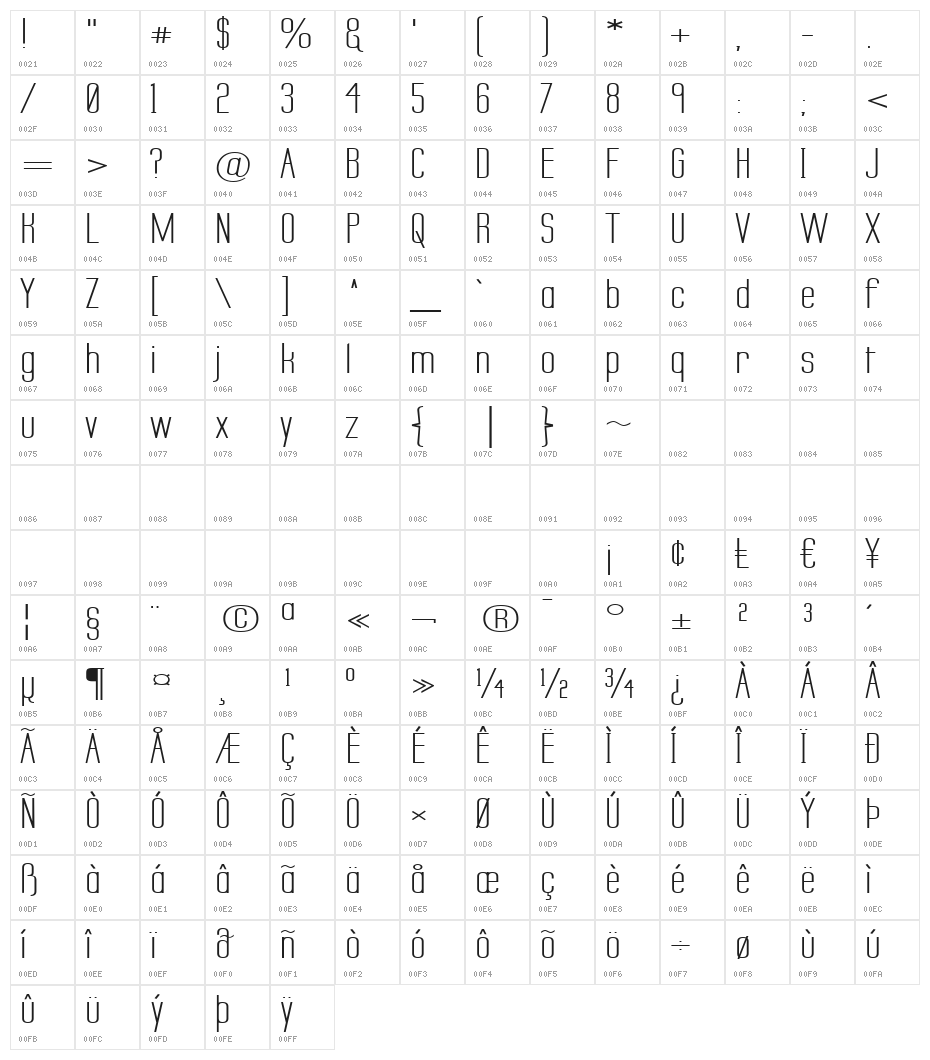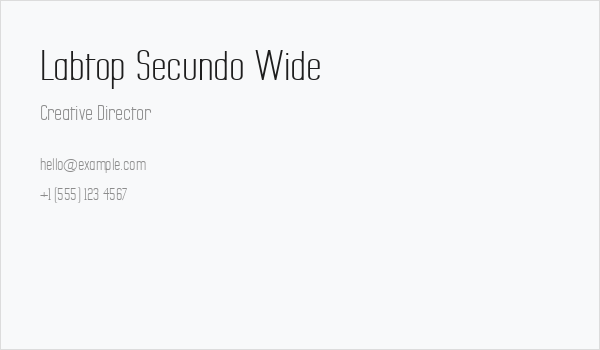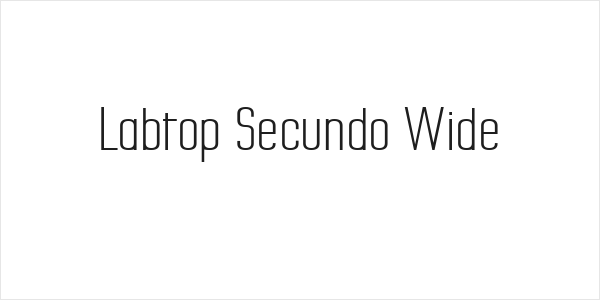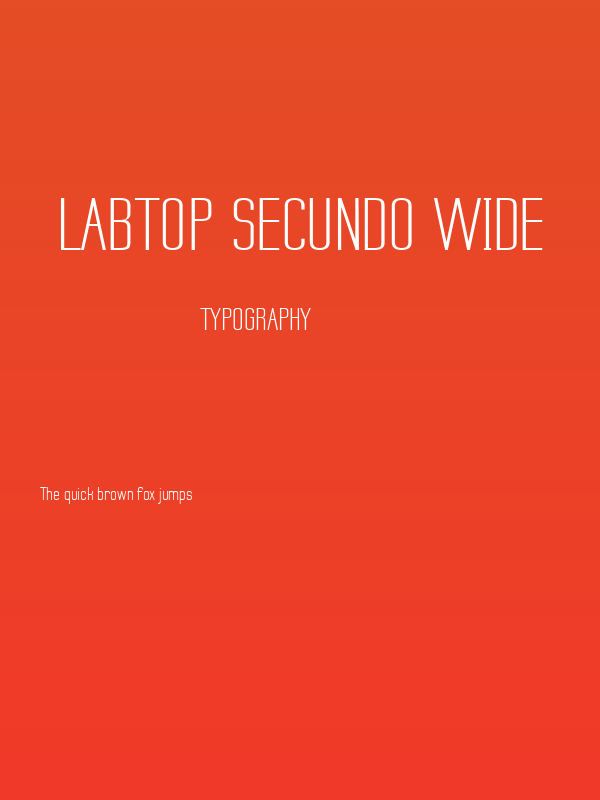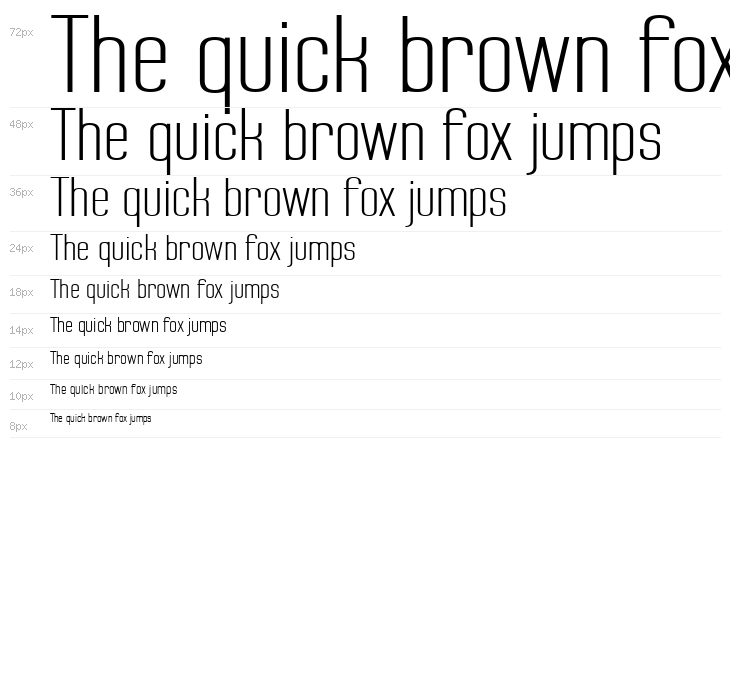
Labtop Secundo Wide Font
Labtop Secundo Wide Description
This font features a sleek, modern design with elongated, narrow characters that convey a sense of elegance and sophistication. The uppercase letters are tall and uniform, while the lowercase letters maintain a consistent height, creating a harmonious balance. The numerals are distinct and easily readable, complementing the overall aesthetic. Special characters are designed with precision, adding to the font's versatility. The thin strokes and minimal contrast give it a contemporary feel, making it suitable for a variety of design applications.
| Use Case | Headlines, Logos, Digital Interfaces |
| Proposed Projects | Ideal for projects such as branding, editorial design, and digital interfaces where a modern and sophisticated look is desired. |